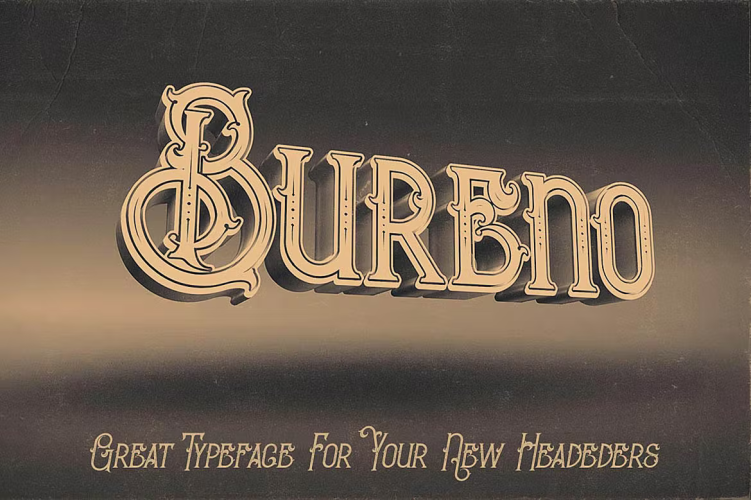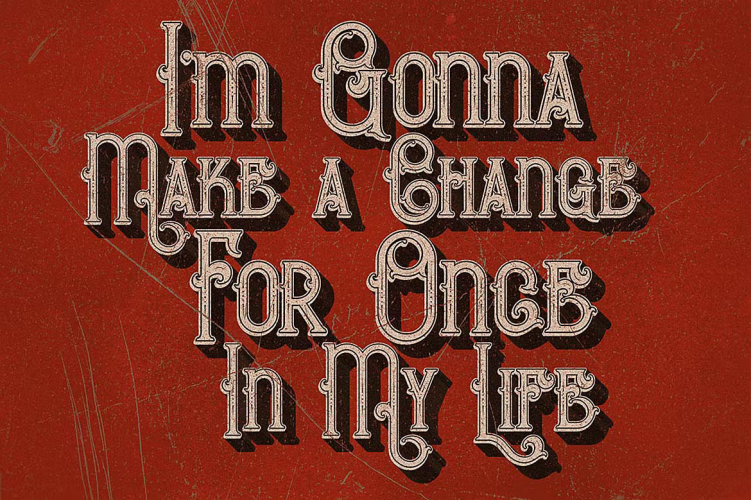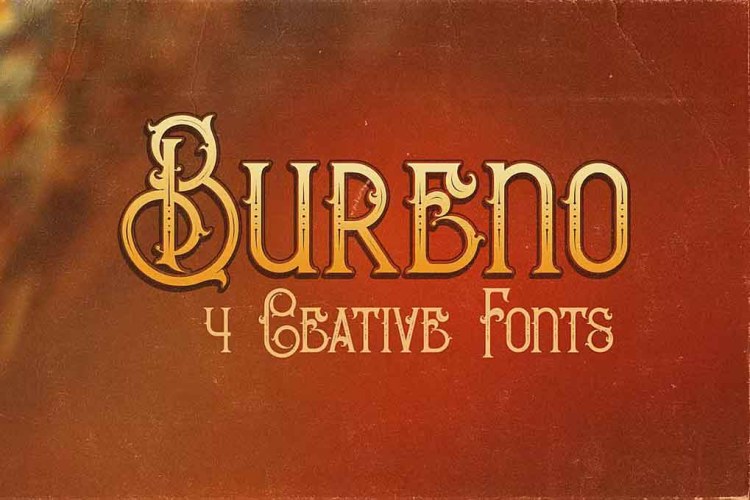
Bureno Decorative Font
Vintage & ornamental style display font for your new projects. Great for your retro/vintage headers or identity!
Bureno Decorative Font gives long-form text a classic, trustworthy rhythm — ideal for magazine spreads, annual reports and book interiors.
Pair Bureno Decorative Font with generous letter-spacing for wordmarks in fashion, hospitality, wine and jewellery branding.
Use Bureno Decorative Font for slide titles in Keynote, PowerPoint or Google Slides to add authority without looking dated.
Bureno Decorative Font is a Serif Fonts typeface tagged Decorative, Display, Retro, Serif. It works well for headlines, logos, posters, social media graphics and branding projects that need a distinctive serif fonts look.